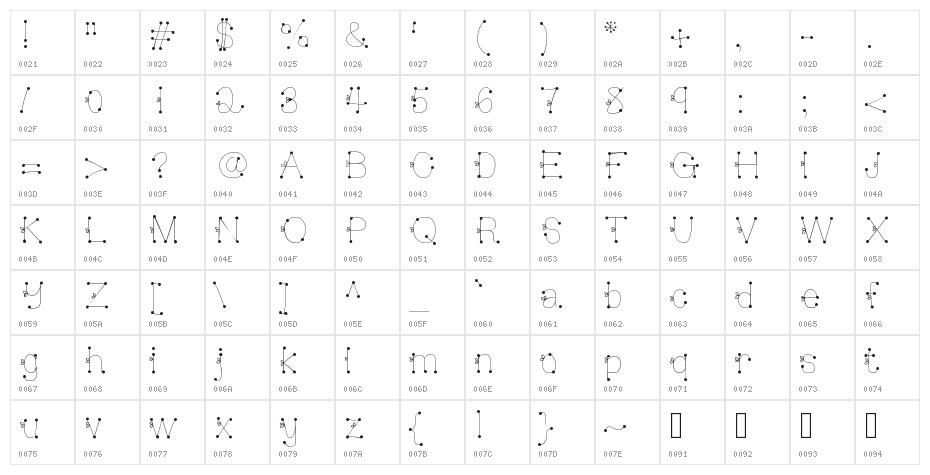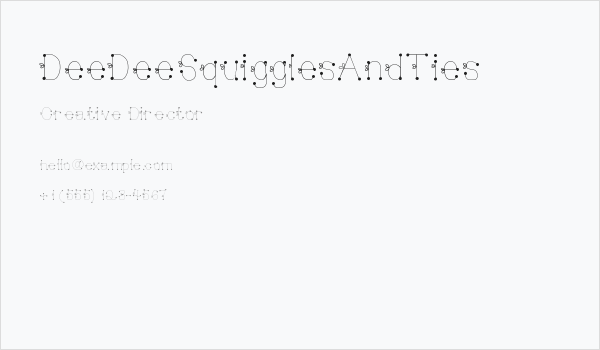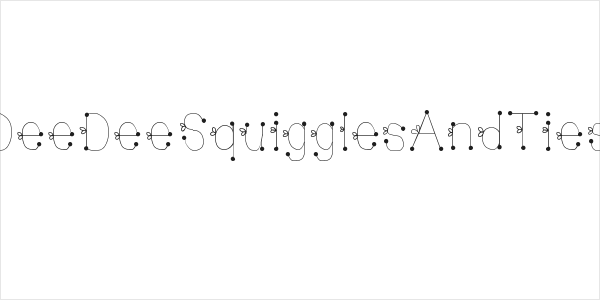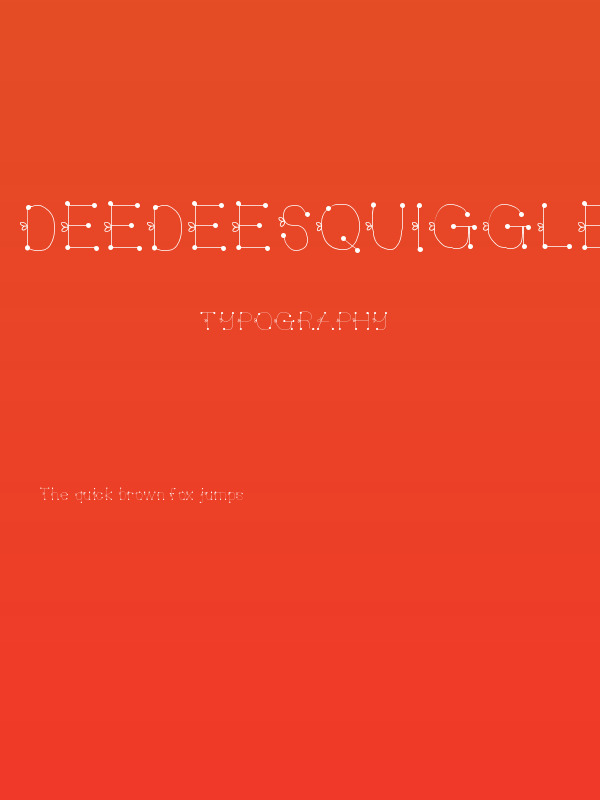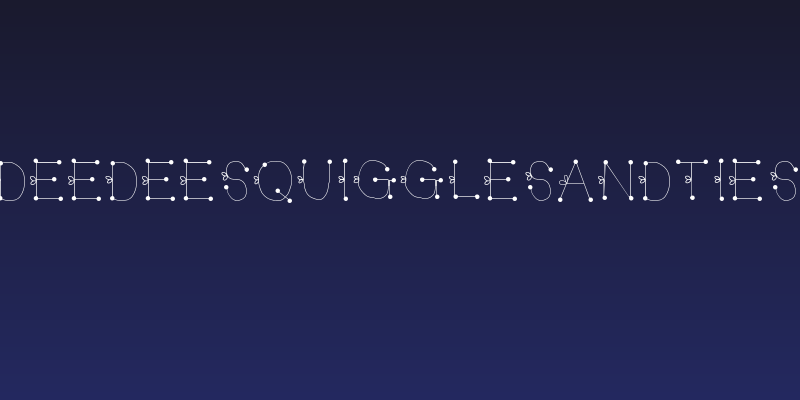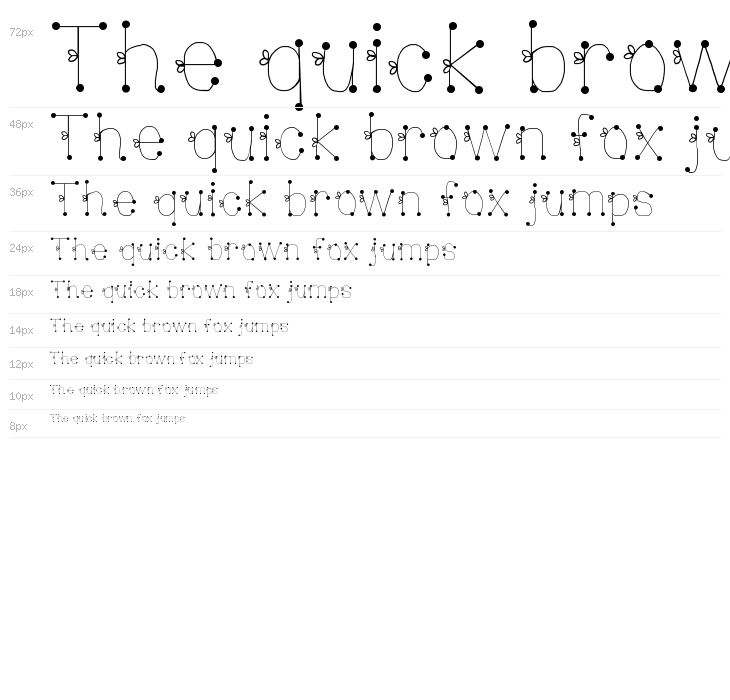
DeeDeeSquigglesAndTies Font
DeeDeeSquigglesAndTies Description
This whimsical and playful font features a unique design with each character adorned with small loops and dots, resembling ties and squiggles. The letters are thin and delicate, with a consistent line weight throughout. The uppercase and lowercase letters maintain a cohesive style, while the numbers and special characters follow the same decorative theme. The font's distinctive appearance makes it stand out, offering a charming and lighthearted feel that is both modern and artistic.
Overall StylePlayful, Artistic, Whimsical
Use CaseLogos, Invitations, Decorative Text
Proposed ProjectsIdeal for children's books, playful branding, greeting cards, and creative invitations.